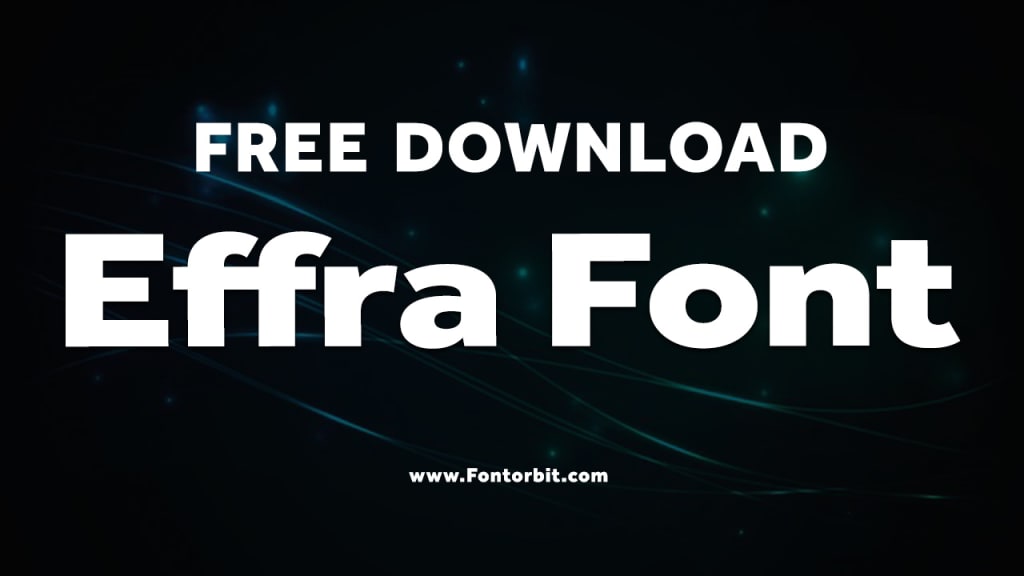
Effra Font: A Versatile Typeface for Modern Design
Effra Font
Effra is a versatile and contemporary sans-serif typeface designed by Ermin Vit. It was developed with the goal of providing a clean, functional, and modern typeface that could be used in a wide range of design contexts.
With its refined design and legibility, Effra has gained popularity across web and print design for both small and large text, making it an ideal choice for modern branding, publications, and websites. This article explores the features, uses, and significance of Effra font in modern design.
Features of Effra Font
Clean and Modern Design: Effra stands out due to its sleek and minimalistic design. Its rounded edges and balanced proportions contribute to its modern and approachable look. This makes it particularly effective in conveying a sense of simplicity and professionalism.
Versatility: Effra offers a range of weights, from Light to Bold, which makes it adaptable to different types of design work. Whether you're creating body text, headlines, or logos, Effra provides the flexibility to work in a variety of typographic environments.
Legibility: One of Effra's key strengths is its high legibility. Designed to be readable at both small and large sizes, it ensures that text remains clear across various mediums, including websites, print materials, and mobile screens.
Wide Character Set: Effra supports a wide range of characters, including multilingual support for different languages. This broad character set ensures that it can be used globally without compromising on design or readability.
Geometric Inspiration: While not strictly geometric, Effra’s design has subtle influences from geometric sans-serif fonts. This gives the typeface a modern, yet approachable appearance that can easily integrate into a variety of design styles.
Uses of Effra Font
Effra is used in many fields, from branding and corporate identity to web design and editorial work. Here are a few examples of where Effra shines:
Branding and Logos: Effra’s clean, professional design makes it an ideal choice for logos and brand identities. Its versatility allows it to adapt to both formal and casual branding, making it suitable for various industries.
Web and Mobile Design: Thanks to its excellent legibility, Effra is widely used in digital design, from website content to app interfaces. Its modern look also ensures that digital projects maintain a fresh, professional appearance.
Print Design: Effra’s range of weights and high readability makes it an excellent choice for print materials like brochures, posters, and magazines.
Corporate Materials: Effra's refined design makes it perfect for business presentations, reports, and other corporate materials, where clarity and professionalism are crucial.
Conclusion
Effra is a versatile, modern sans-serif typeface that offers legibility and style in a wide range of design contexts. Its clean lines, contemporary feel, and adaptability to various mediums make it a go-to font for both digital and print designs. Whether you're creating a brand identity or working on a website, Effra delivers excellent readability without sacrificing style.
Frequently Asked Questions (FAQs)
1. Who designed the Effra font?
Effra was designed by Ermin Vit, a type designer known for creating versatile and functional typefaces.
2. What are the best uses for Effra?
Effra is ideal for web design, branding, print materials, and corporate documents. Its modern aesthetic and excellent legibility make it suitable for both large and small text.
3. Does Effra support multiple languages?
Yes, Effra supports a wide range of languages, including Latin, Cyrillic, and Greek characters, making it versatile for international use.
4. What is the difference between Effra and other sans-serif fonts?
Effra stands out due to its balanced proportions, geometric influences, and subtle roundness, making it both modern and approachable, while still retaining excellent legibility.
5. Can Effra be used for body text?
Yes, Effra is highly legible and works well for body text, making it perfect for websites, magazines, and other materials where text clarity is essential.